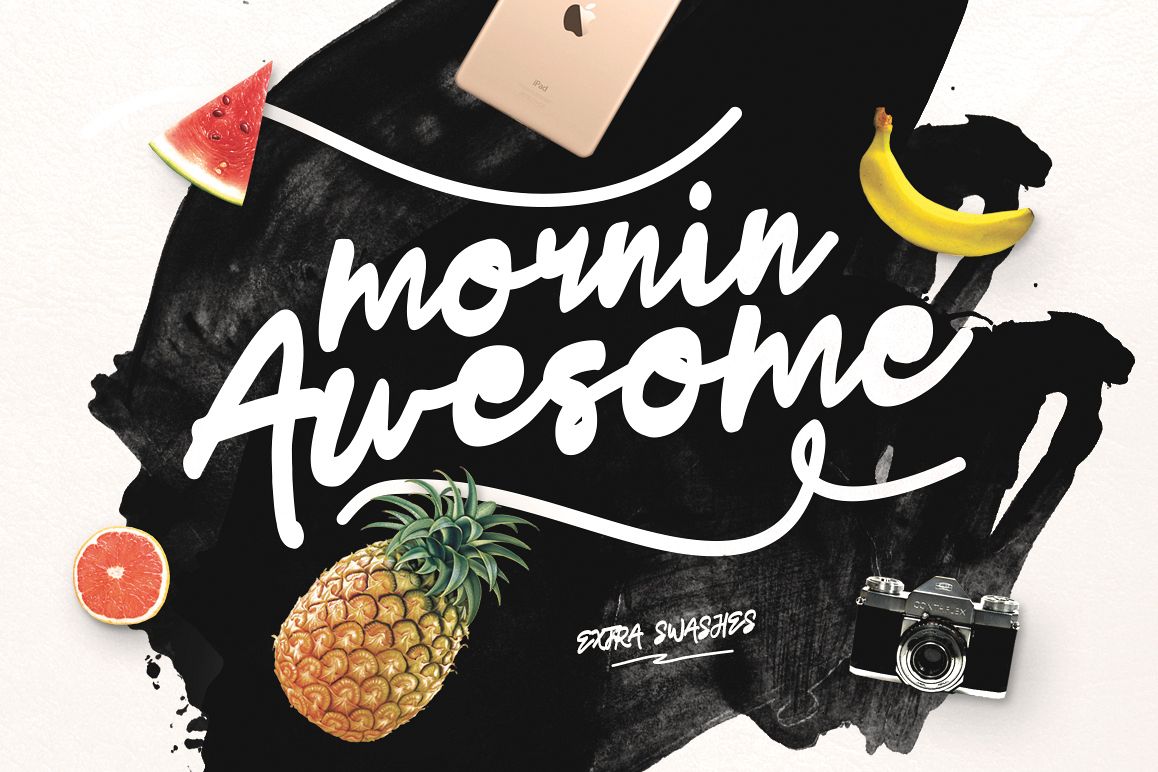
Mornin Awesome Typeface
by Maulana Creative
Give your designs an authentic dope bold handcrafted feel. "Mornin Awesome" is perfectly suited to stationery, logos and much more.